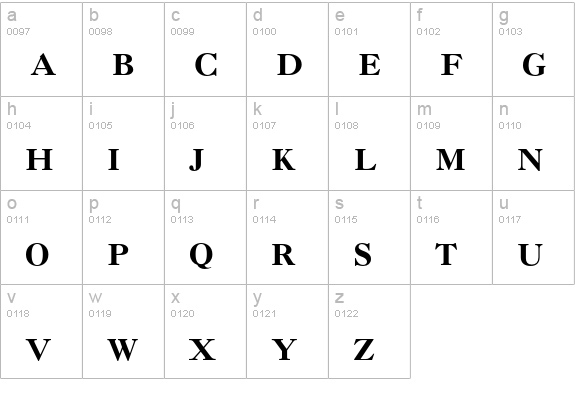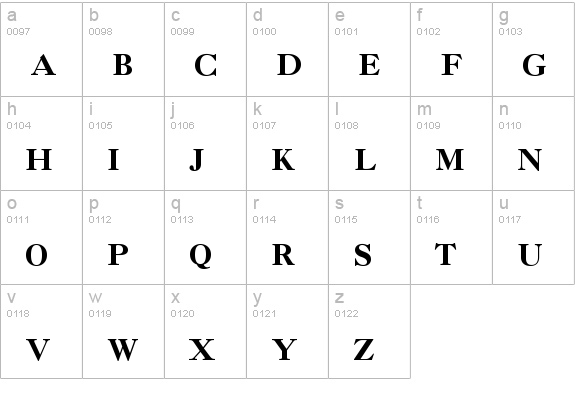
Caslon 3 Roman Small Caps & Oldstyle Figures Font Details
Caslon 3 Roman Small Caps & Oldstyle Figures is a classic typeface exuding elegance and sophistication. With its timeless design and historic roots, this font is perfect for a wide range of projects, from traditional print materials to modern digital designs. The small caps and oldstyle figures add a touch of vintage charm to any text, making it stand out with a touch of class. Best of all, Caslon 3 Roman Small Caps & Oldstyle Figures is available for free download at FontsMarket.com. This means you can add this beautiful font to your collection without any cost, making it a valuable asset for designers, typographers, and creatives alike. Don't miss out on the opportunity to enhance your projects with this exquisite typeface – download Caslon 3 Roman Small Caps & Oldstyle Figures today for free!